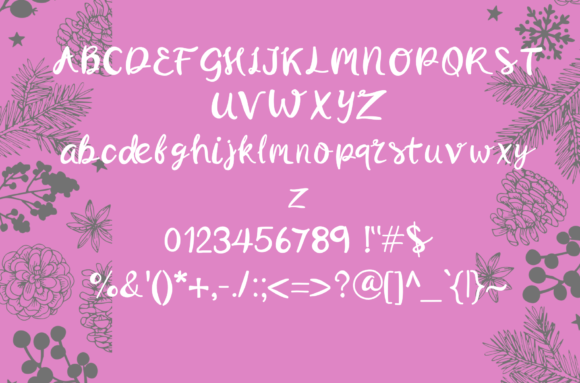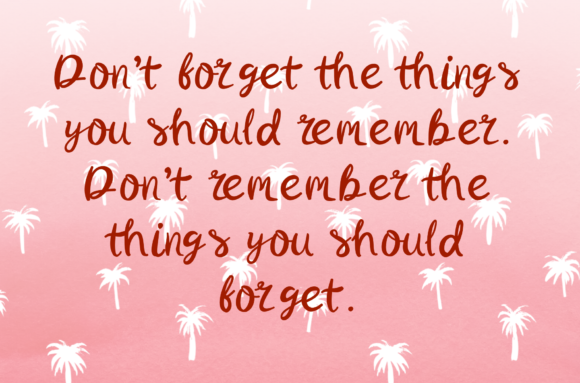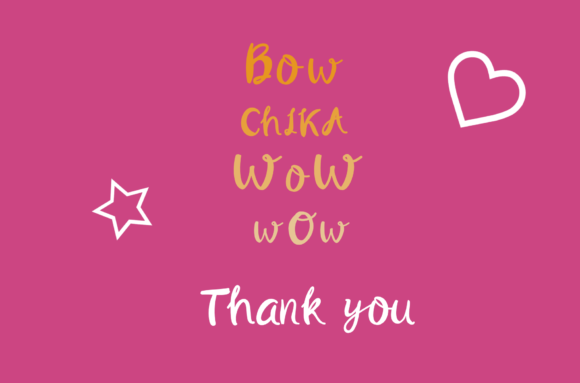
Introduction to Quinny Font
Quinny is a flowing handwritten font, described by an elegant touch, perfect for your favorite projects.
Key Features of Quinny Font
Why Choose Quinny Font?
Quinny Font offers exceptional quality and versatility, making it a valuable addition to your design toolkit. Whether you’re creating for personal projects or commercial use, Quinny Font delivers professional results.